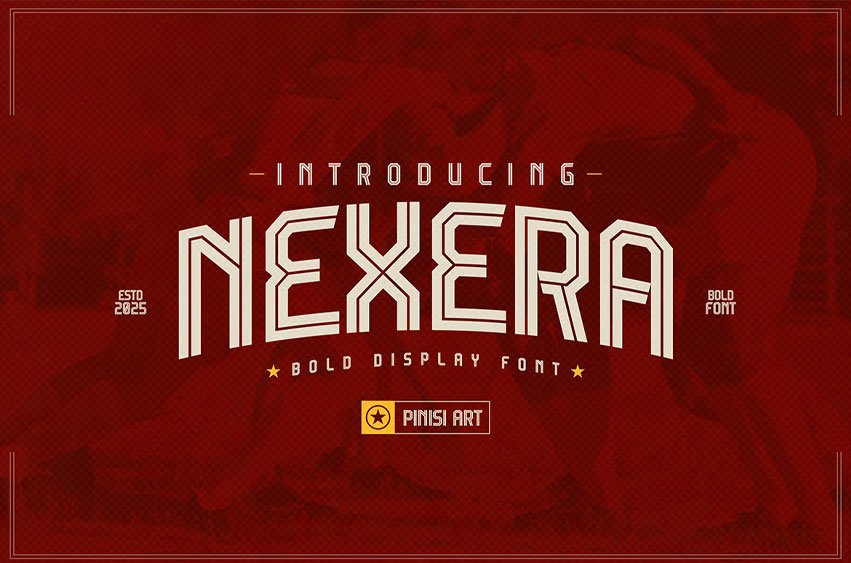
Nexera Font is a bold, athletic display typeface with sharp geometric lines, strong contrast, and dynamic terminals, designed to capture the energy of competitive sports. Its square-cut proportions and bold stance give every headline a sense of power and determination. Perfect for sports branding, posters, and editorial layouts, Nexera’s expressive structure makes it stand out in fast-paced, high-impact design environments.
Built for posters, sports campaigns, game-day graphics, and team branding, NEXERA channels the intensity of athletic competition into typography. Its commanding style ensures every design feels energetic, motivational, and attention-grabbing, helping brands and creators craft visuals that rally emotion and team spirit. Whether used on a stadium billboard, match result graphic, or digital poster, NEXERA delivers an unmistakable tone of victory and performance.
Key Features :
• Bold Headlines That Command Attention
• Designed for sports branding, posters, and digital campaigns
• Strong proportions for maximum readability in large formats
• Dynamic and Energetic Letterforms
• Sharp geometric edges for a competitive, modern tone
• Powerful presence in editorial spreads, gaming UI, and event promotions
• Versatile and Usable Across Media
• Works seamlessly in print, digital, and large-scale advertising
• Perfect balance between expressive style and functional clarity